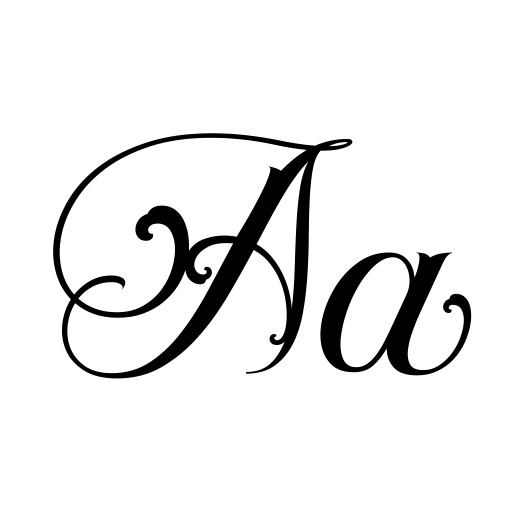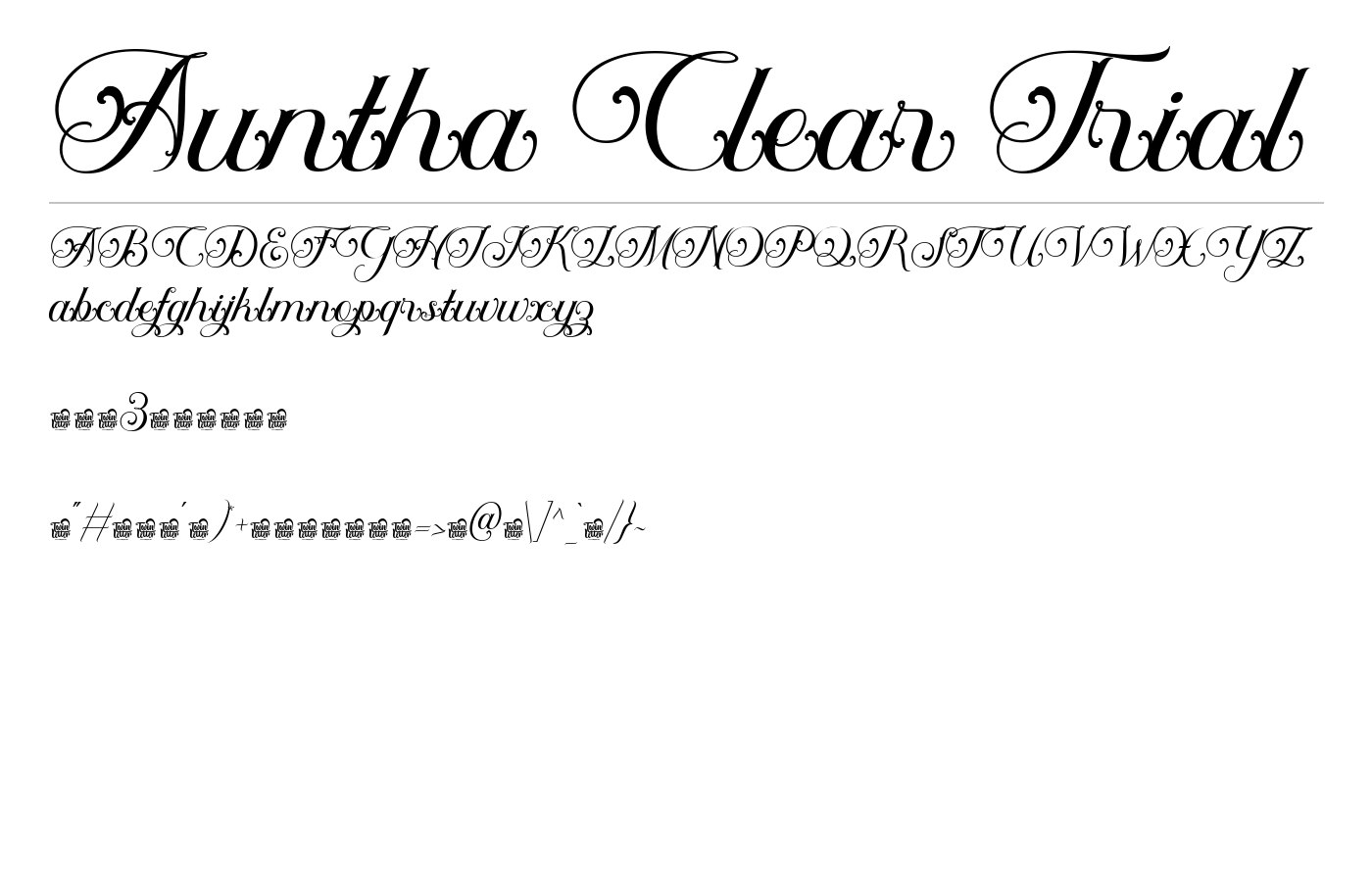
Auntha Clear Trial is a delicate and elegant script font characterized by its fine, flowing strokes and intricate swashes, giving it a refined and classic feel. Its high contrast and decorative curves make it ideal for sophisticated branding, wedding invitations, and high-end packaging, where a touch of luxury and grace is desired. This font works best in display settings where its ornamental details can shine, adding a timeless and stylish flair to any project.
Auntha Clear Trial Font
About Auntha Clear Trial Font
| Font family | Auntha Clear Trial Font |